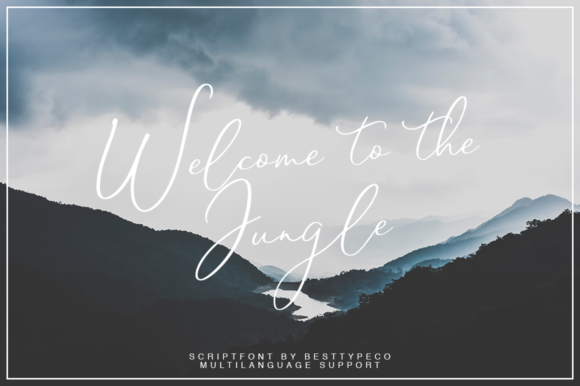
Welcome to the Jungle Font
Welcome to the Jungle - A Typographic Adventure Unleashed
In the heart of creativity's wild, where imagination roams free, there exists a font that captures the untamed spirit of the jungle. Welcome to the Jungle, a script font born from the vibrant essence of nature, is here to awaken your designs with its captivating charm.
Step into the untamed realm of typography, where every letter dances with the rhythm of the jungle. Welcome to the Jungle's enchanting strokes, inspired by the winding paths of vines and whispers of leaves, will elevate your designs to new heights. Its organic flow and captivating curves exude elegance and untamed beauty, leaving a lasting impression on all who behold it.
This extraordinary script is meticulously crafted to reflect the raw energy of the jungle. Each character, like a wildflower in bloom, possesses a unique personality, adding depth and dimension to your creations. Whether you're conjuring enchanting greeting cards, crafting captivating branding materials, designing striking business cards, or immortalizing heartfelt quotes on posters, Welcome to the Jungle will guide you through the untamed terrains of creativity.
Its versatility knows no bounds, just like the wild spirit of the jungle. Welcome to the Jungle effortlessly adapts to a myriad of design styles, from the playful and whimsical to the sophisticated and elegant. Its innate charm effortlessly blends with various aesthetics, enhancing your designs with a touch of wild elegance.
Immerse yourself in the vibrant world of typography and let Welcome to the Jungle ignite your creative fire. Unleash your inner adventurer and embark on a typographic journey that will leave your audience breathless.